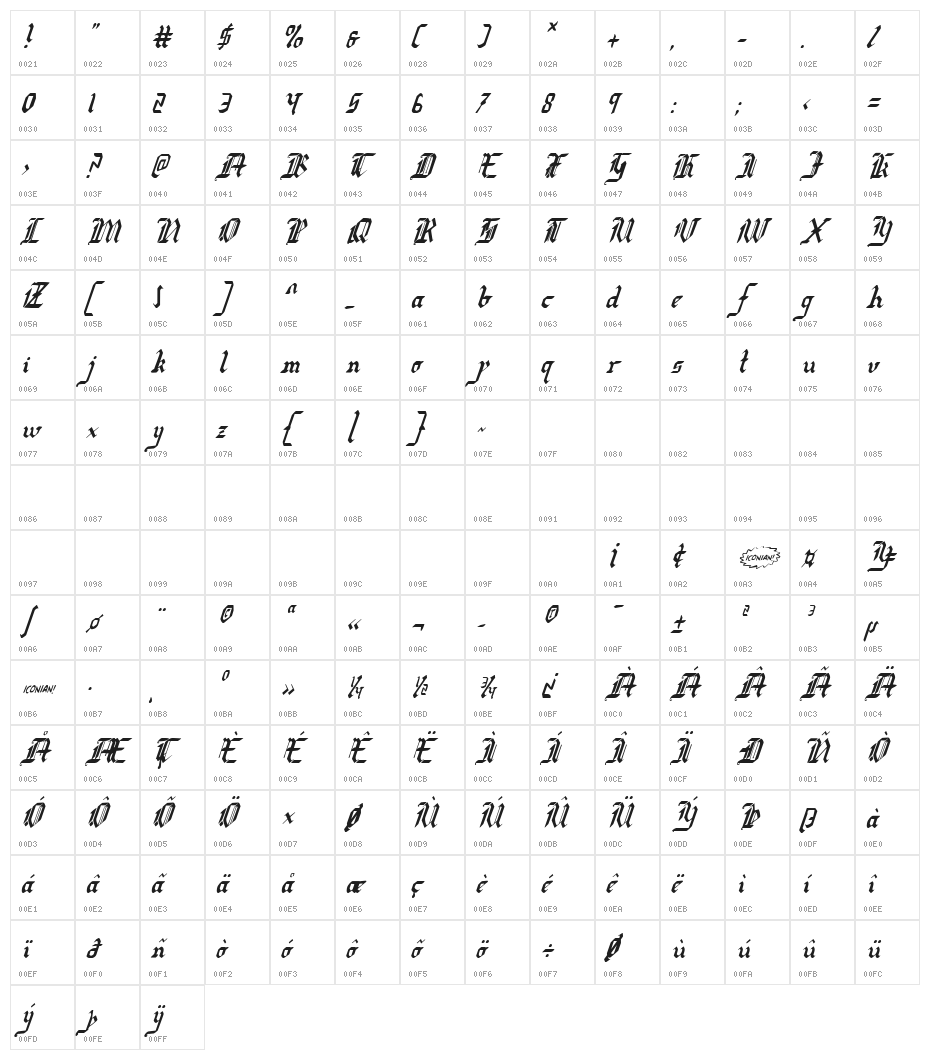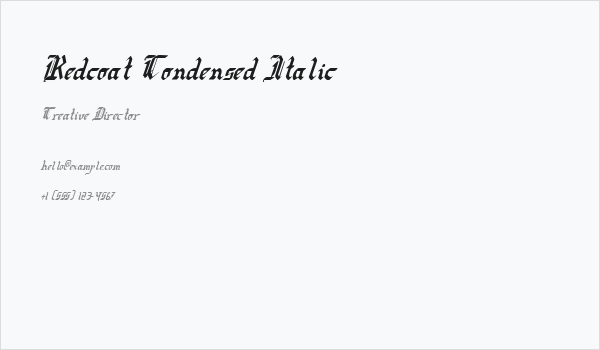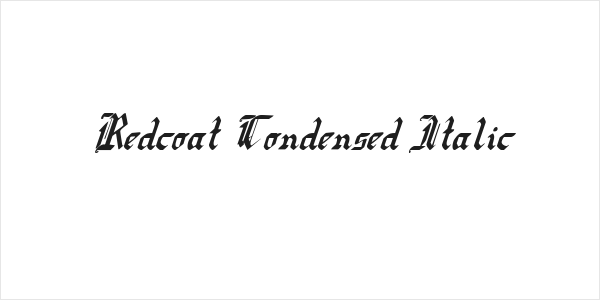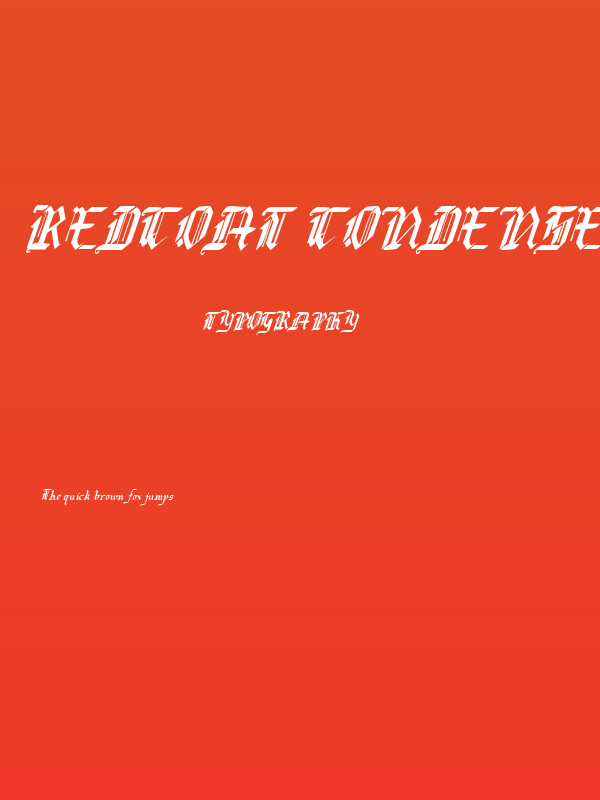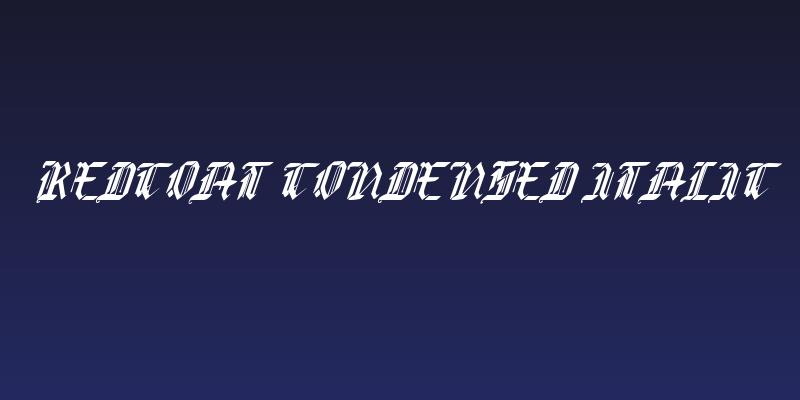
Redcoat Condensed Italic Font
Redcoat Condensed Italic Description
This font features a bold and condensed style with a distinct italic slant, giving it a dynamic and energetic appearance. The characters are sharply defined with angular strokes and a high contrast between thick and thin lines, reminiscent of traditional calligraphy. The uppercase letters are particularly striking, with elaborate serifs and flourishes that add a touch of elegance. The lowercase letters maintain the same angular style, ensuring consistency throughout the typeface. The numerals are equally bold and maintain the same condensed form, making them stand out. Special characters are designed with the same attention to detail, providing a cohesive look across all glyphs.
| Proposed Projects | Ideal for use in branding, logos, headlines, and any project that requires a bold and elegant statement. |